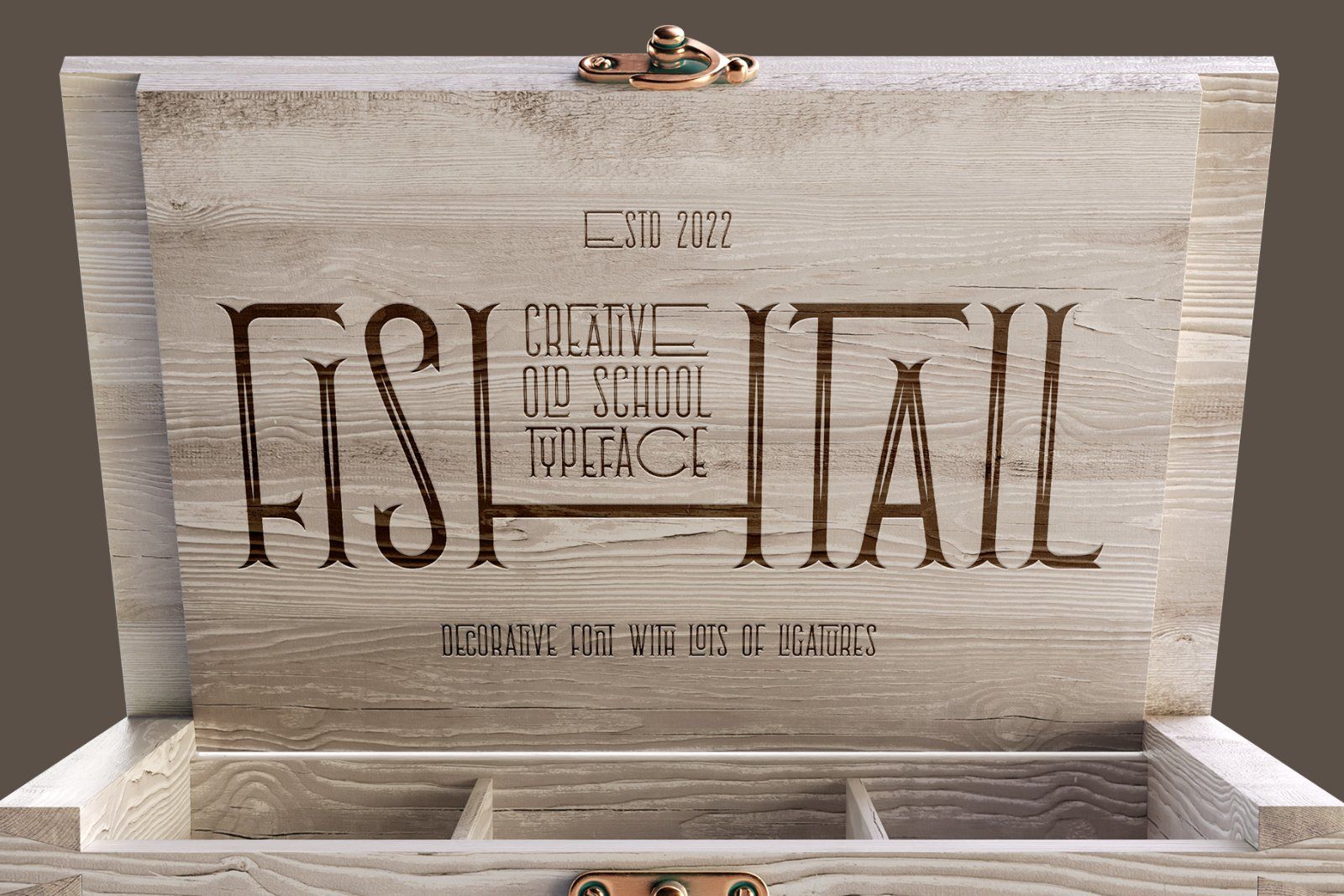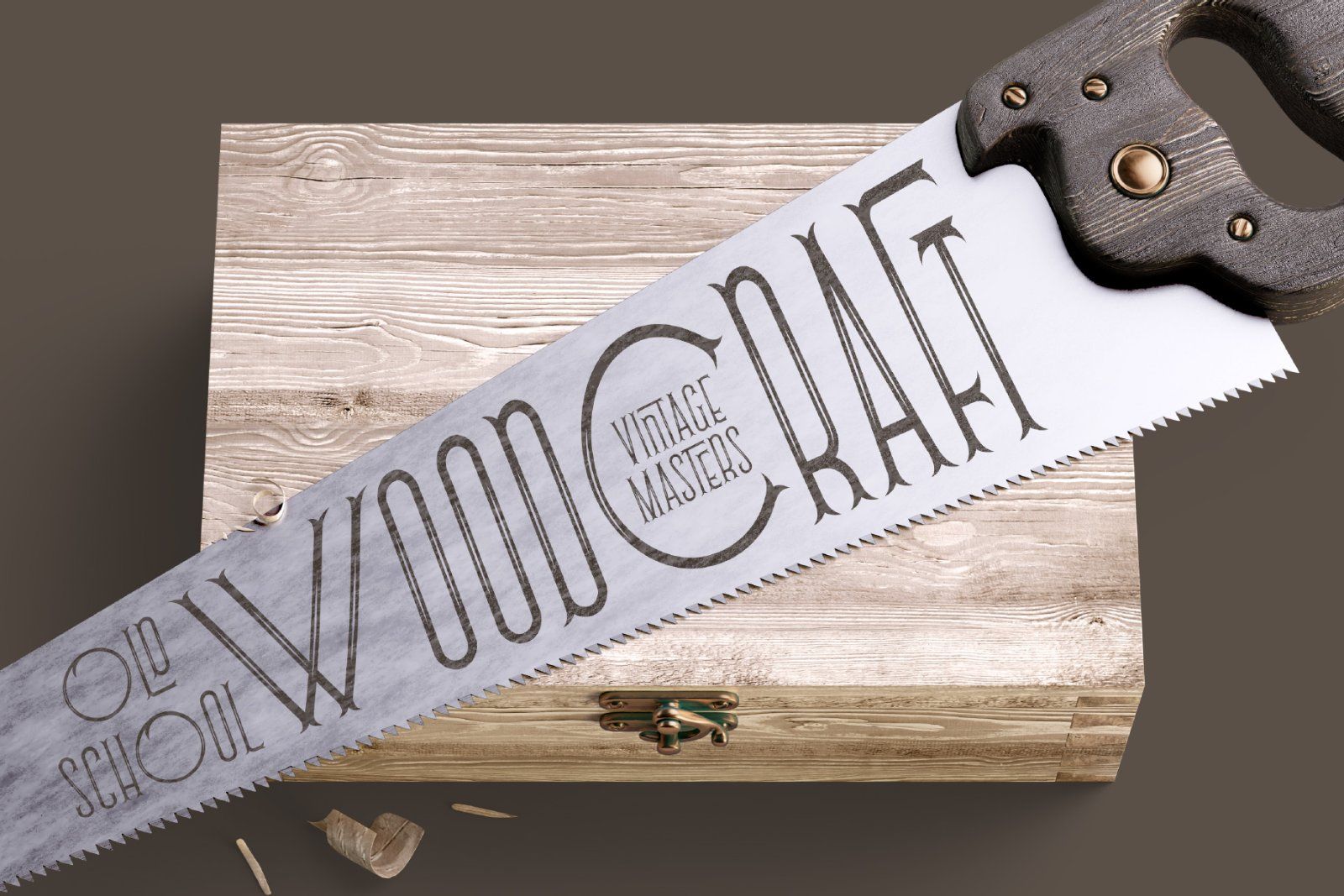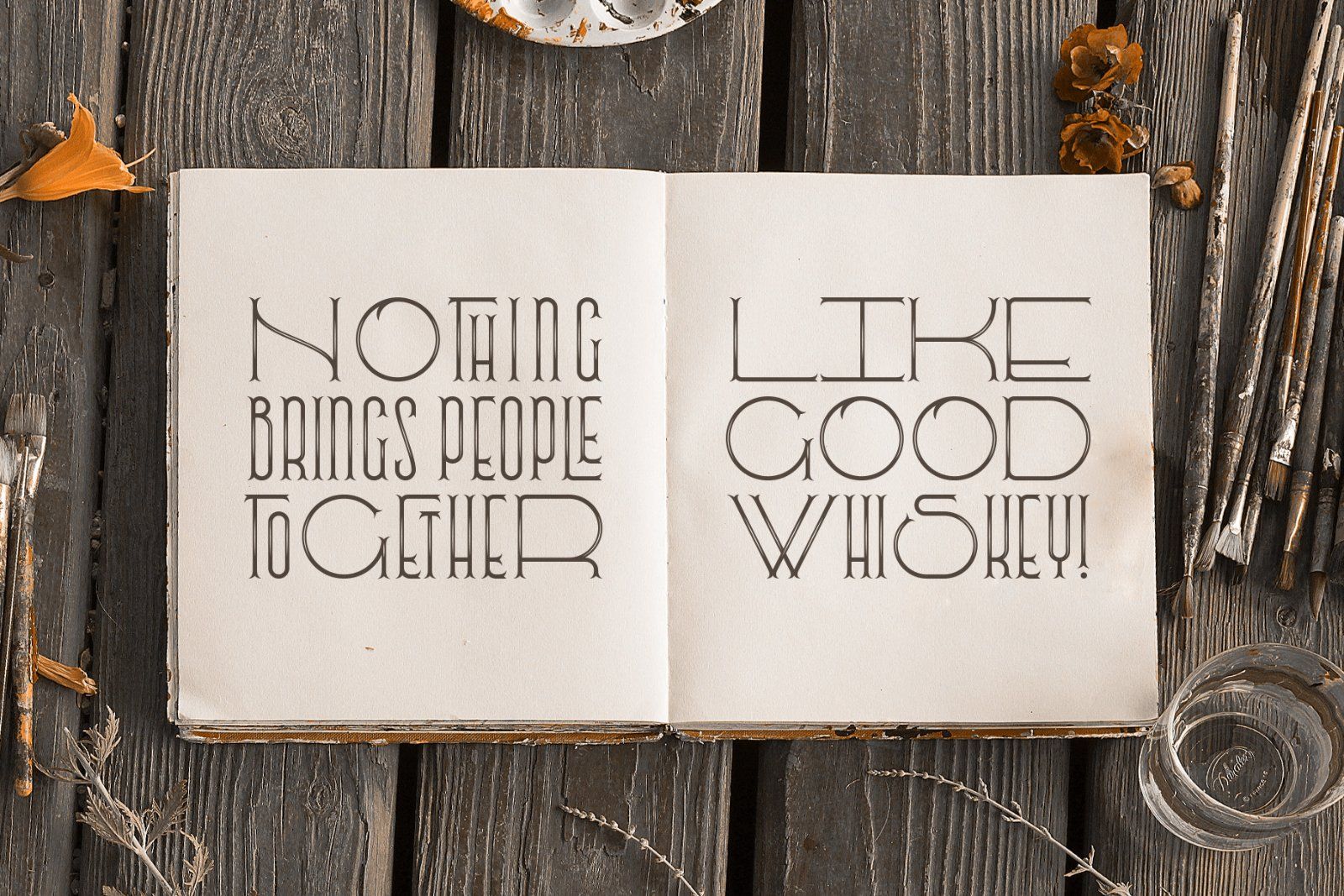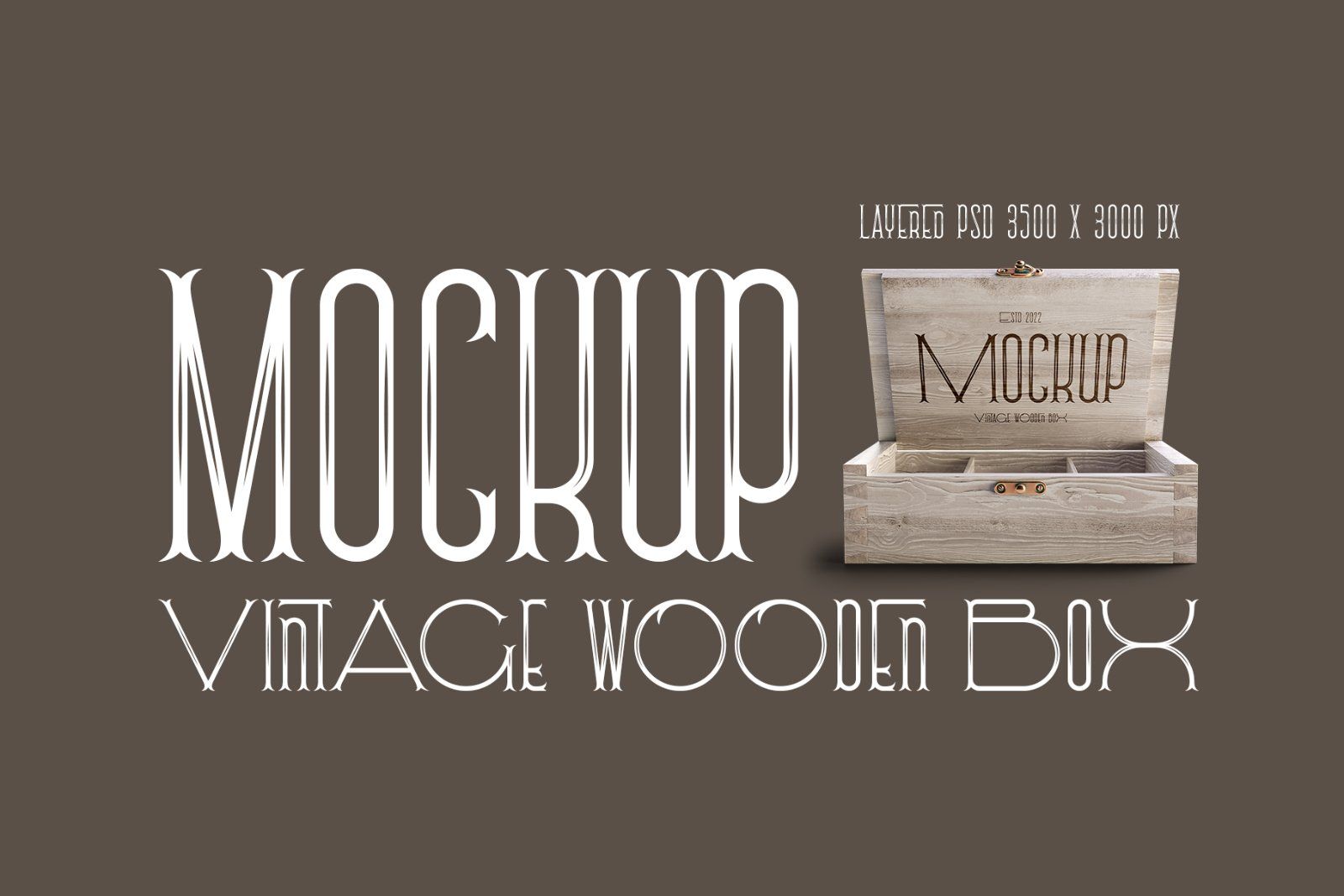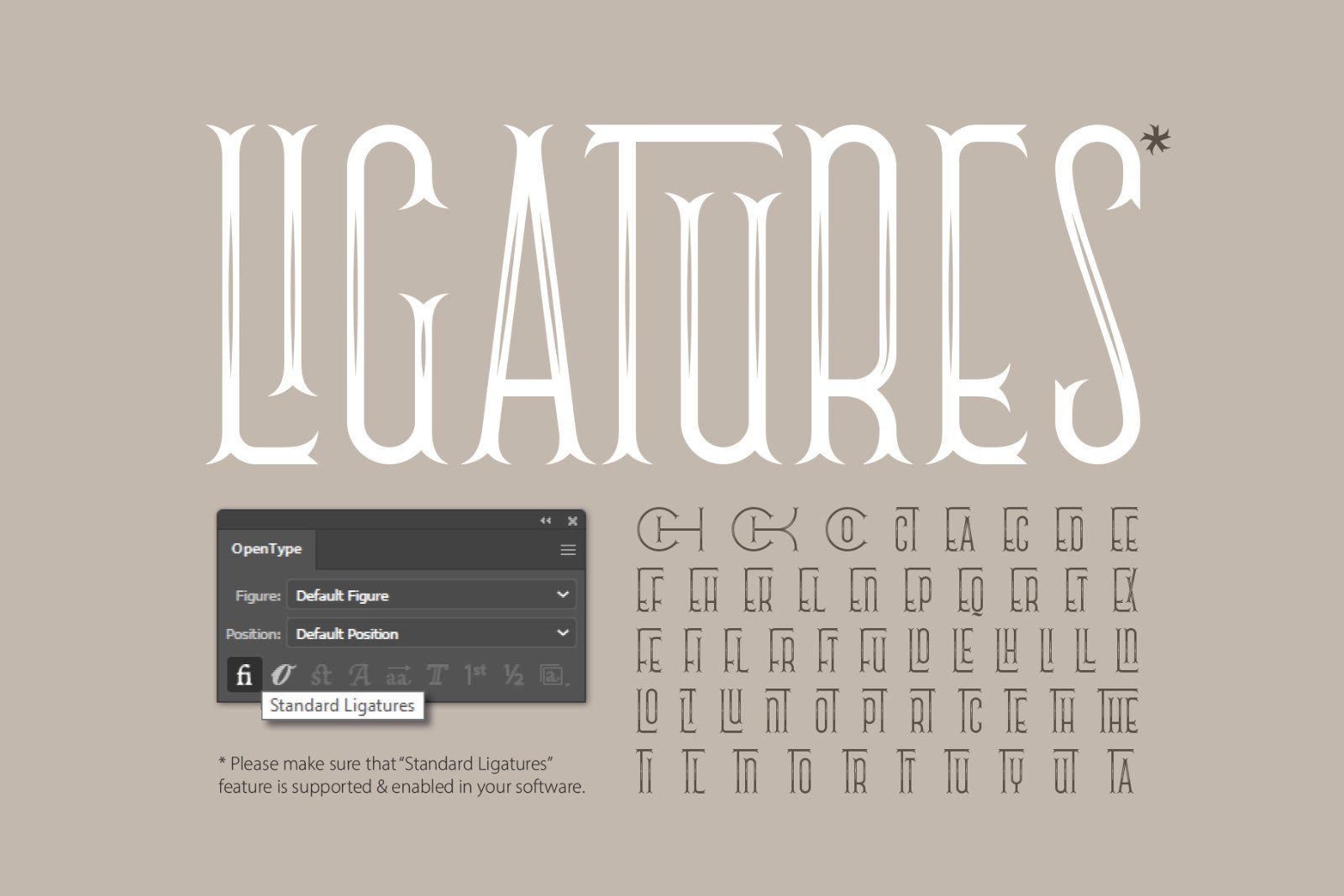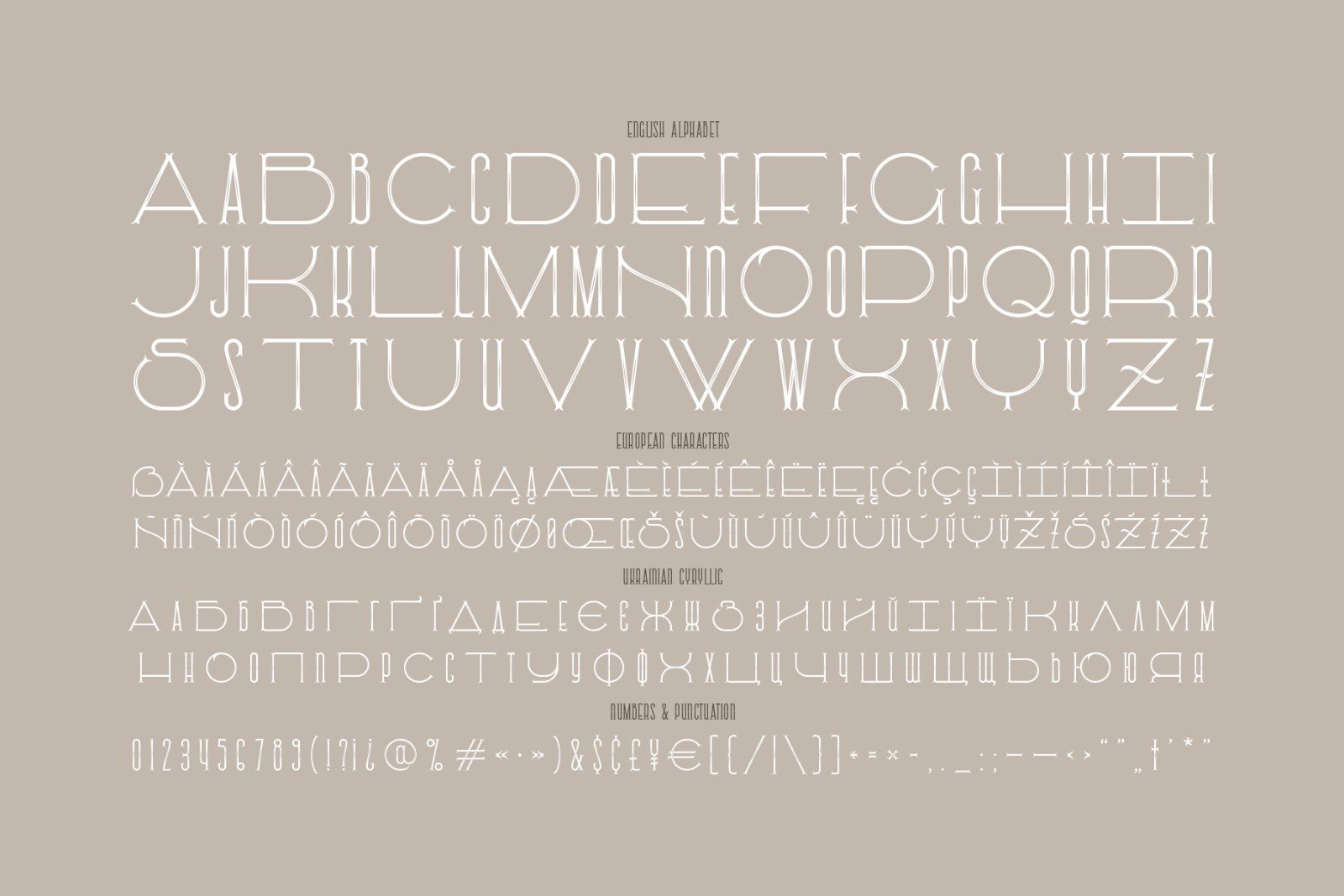
Hi, introducing a vintage display font - Fishtail. It's an old school font set with thin decorative shape. Fishtail typeface has narrow characters for small letters and wide shape for capital letters. Also lots of ligatures will help you to create an original lettering compositions (Make sure that “Standard Ligatures” feature is supported & enabled in your software).